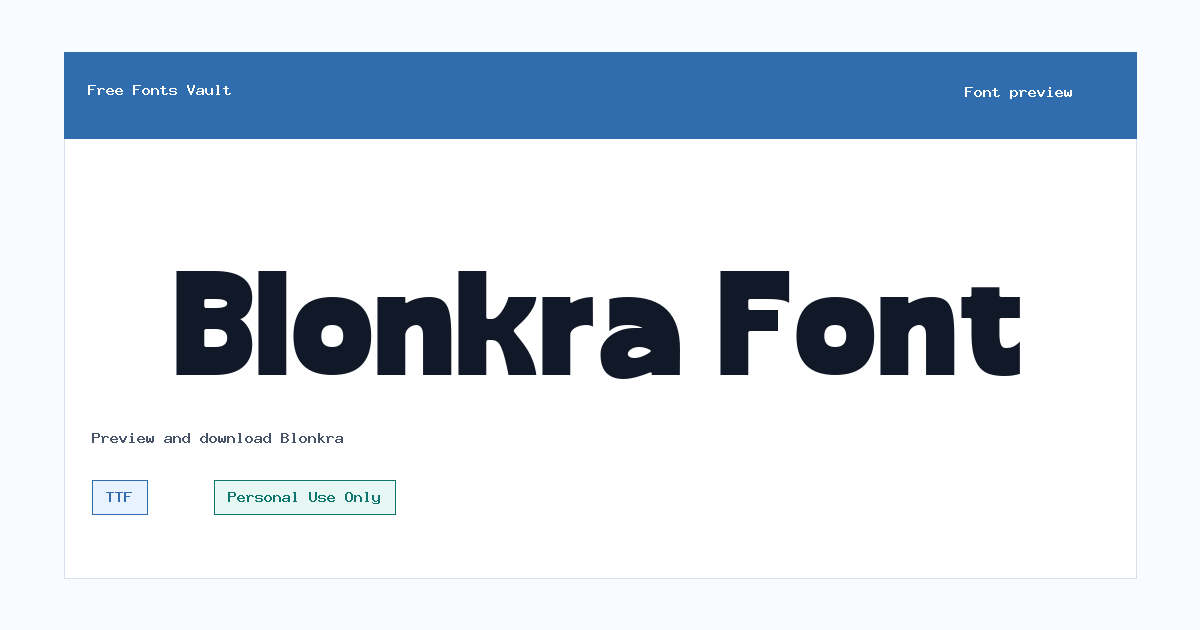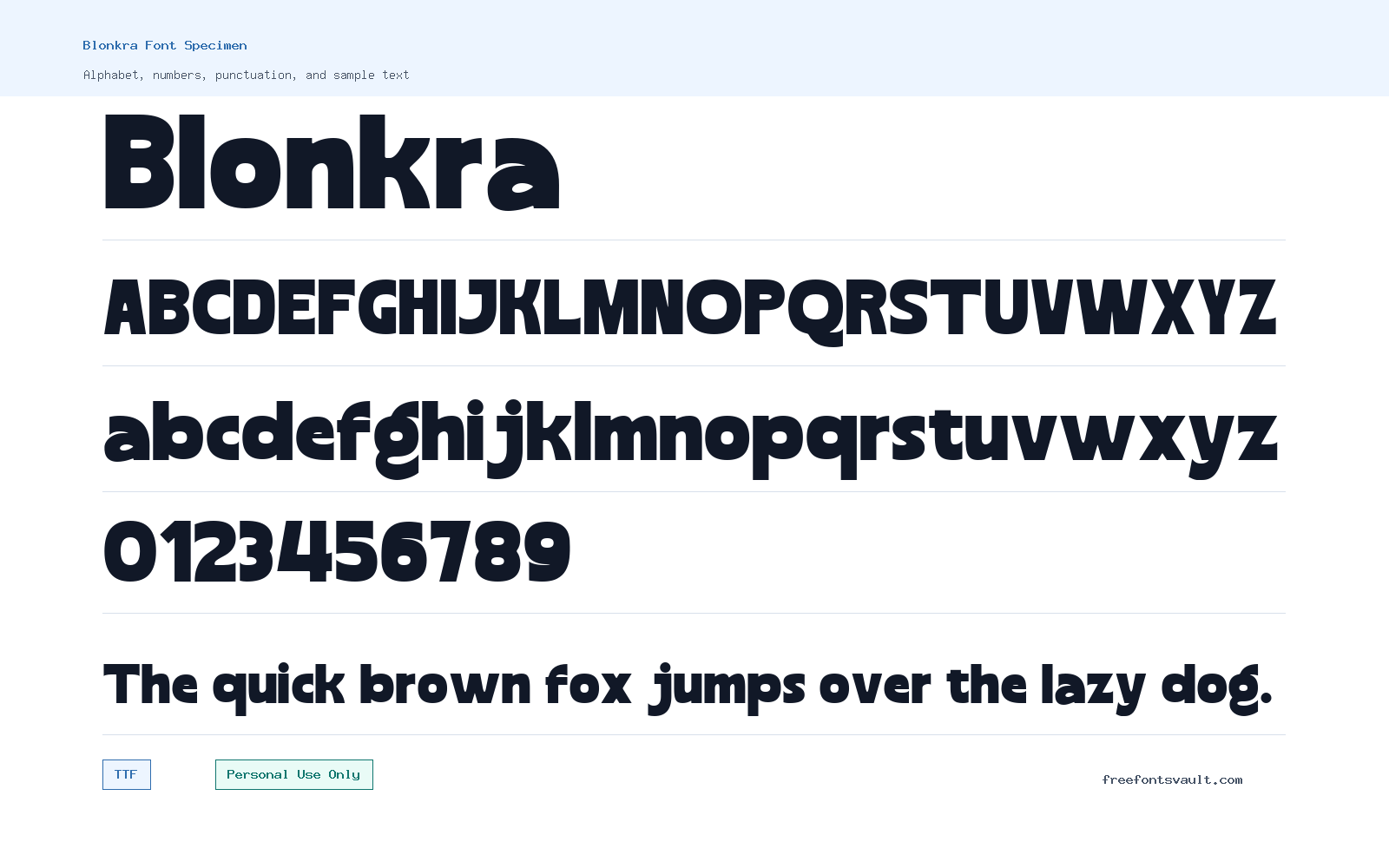
Blonkra
Blonkra is a bold display sans serif with a rounded, chunky look. It is built for short text that needs weight and personality, such as headlines, labels, posters, and social graphics.
About Blonkra
Blonkra uses thick, even strokes and soft rounded letter endings, giving the font a friendly retro feel without turning it into a novelty face. The high x-height helps the letters stay strong in large settings, while the curved shapes make words feel warmer than a sharp geometric sans. It works best when the text is short and direct: a product name, a food-themed title, a poster headline, a sticker-style phrase, or a bold social media caption.
Because Blonkra is heavy and rounded, preview it at the size you actually plan to use. Try uppercase, lowercase, numbers, punctuation, and any accented characters your design needs before downloading. It can carry a headline on its own, but it should usually be paired with a simpler text font for body copy, menus, descriptions, or longer paragraphs. If your layout already has bright colors, thick outlines, or busy illustrations, give Blonkra enough spacing so the rounded shapes do not feel crowded.
• Bold rounded sans serif style with thick, even strokes and a display-focused personality.
• Posters, social media headers, stickers, packaging mockups, and short promotional titles.
• Food branding concepts, playful product labels, logo sketches, and retro-inspired headline layouts.
Use Blonkra where the message is short and visual impact matters more than long-form reading. Keep body text in a clean companion font, and test spacing carefully because the bold rounded letters can become tight in small sizes.
What kind of font is Blonkra?
Blonkra is a bold rounded display sans serif. It has thick strokes, soft endings, and a warm retro-style look suited to short headline text.
Is Blonkra good for paragraphs?
It is better for short text than paragraphs. For longer reading, pair it with a lighter, simpler sans serif and use Blonkra only for titles or emphasis.
Test your exact wording, punctuation, numbers, and any accented characters you need. Also compare small and large sizes so you can see where the heavy rounded shapes work best.